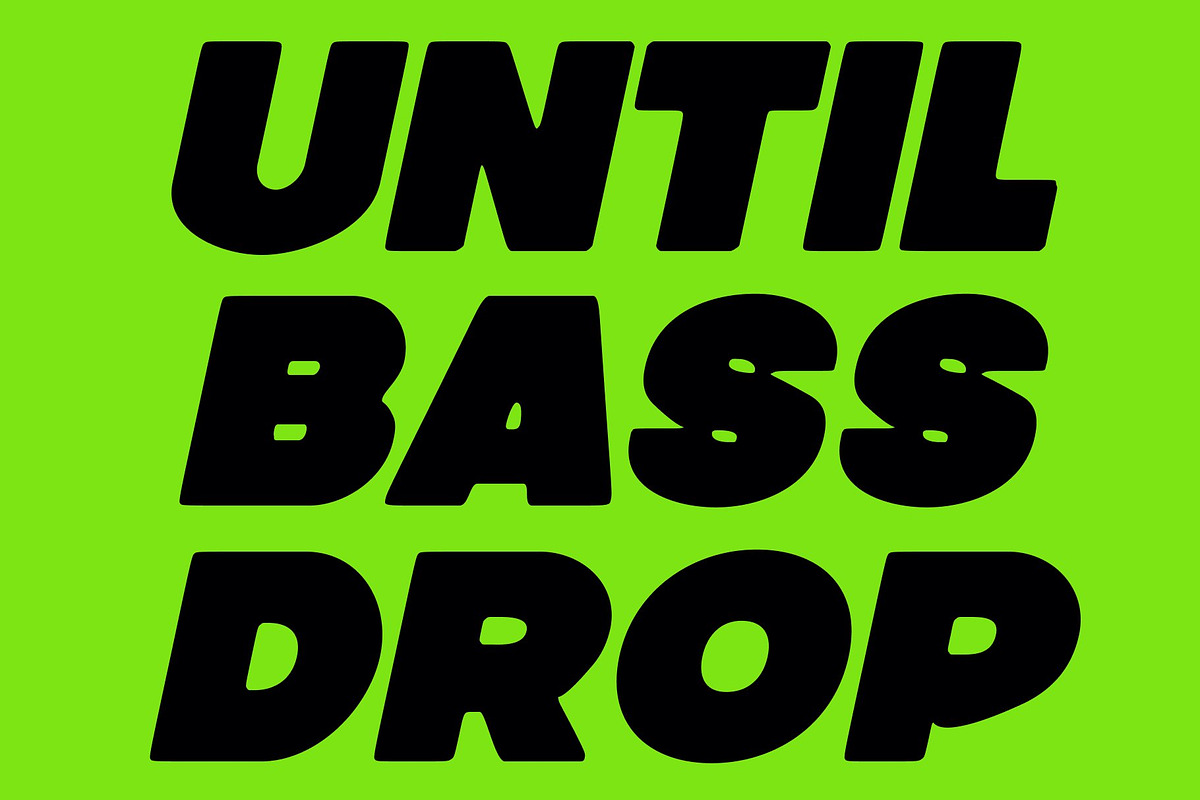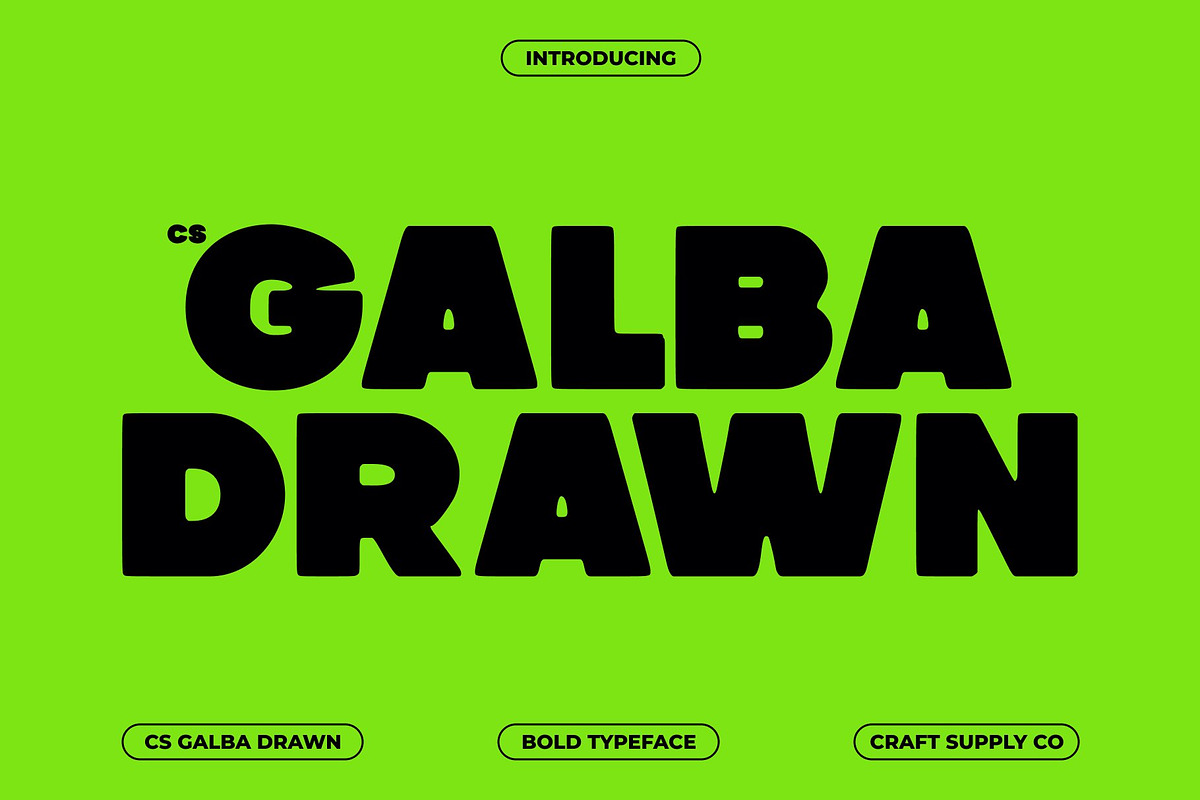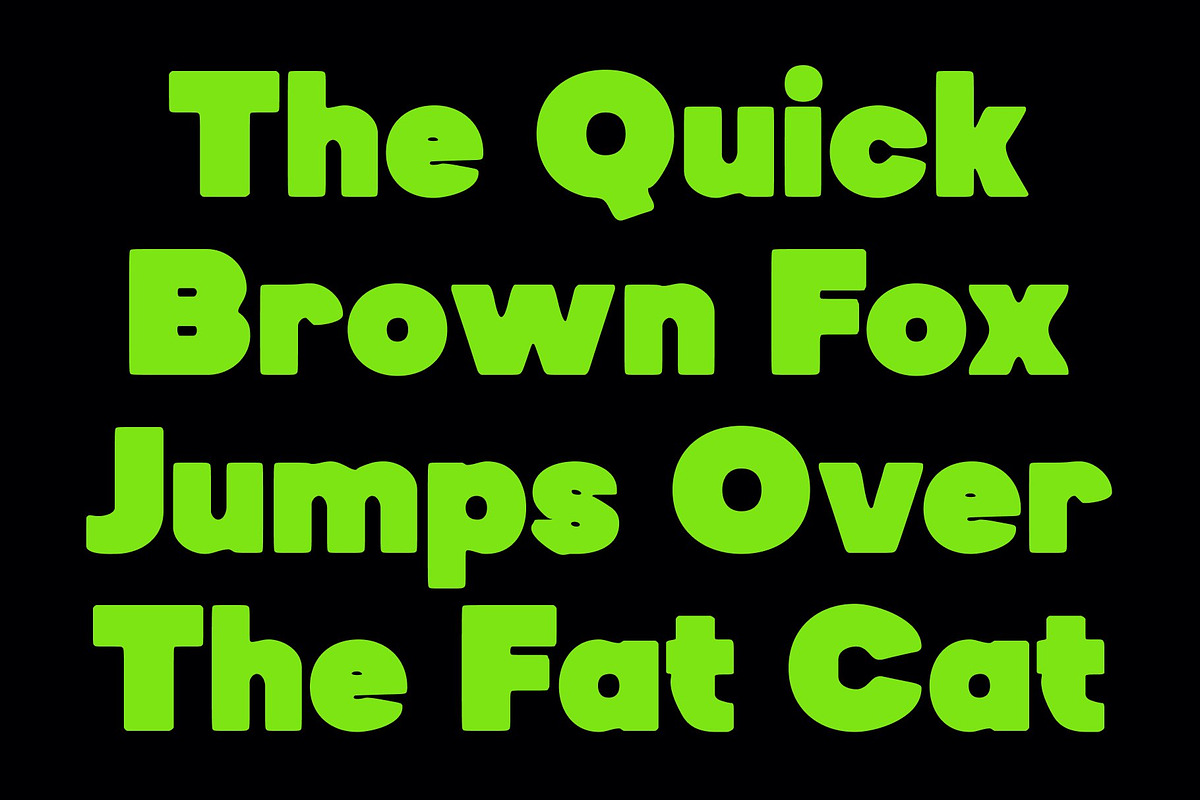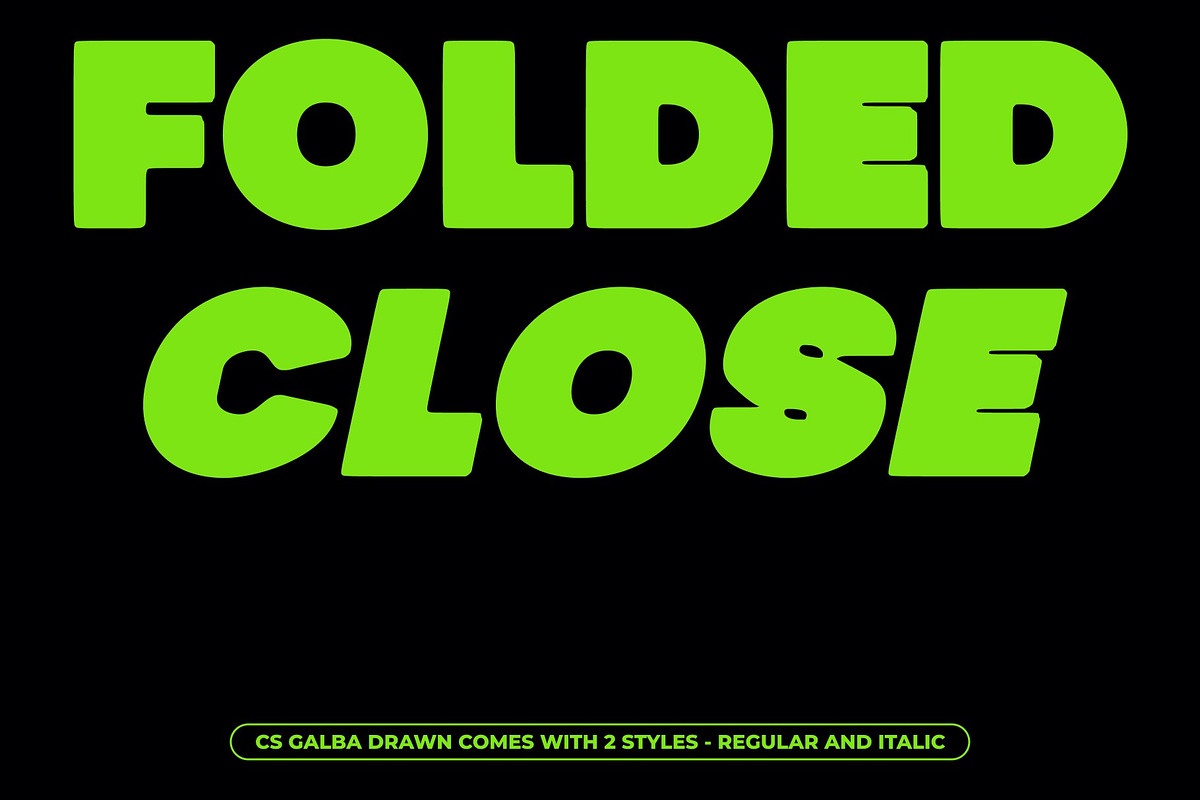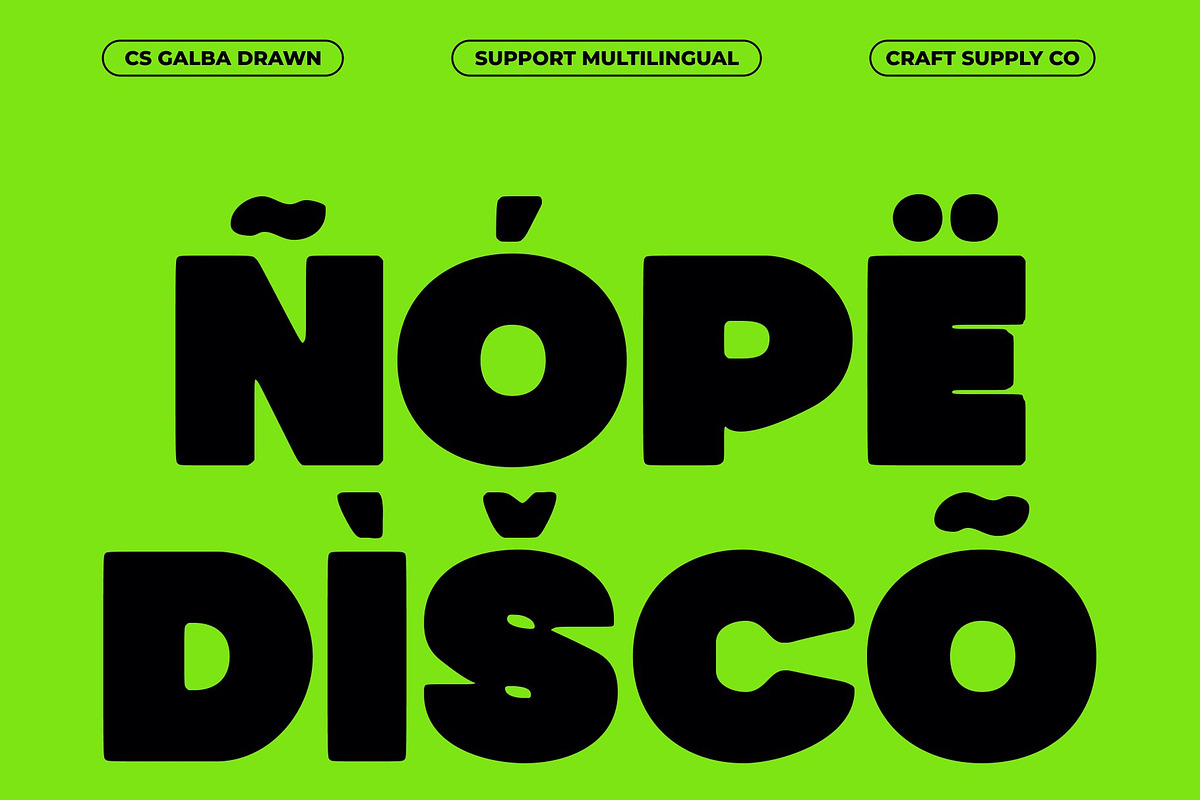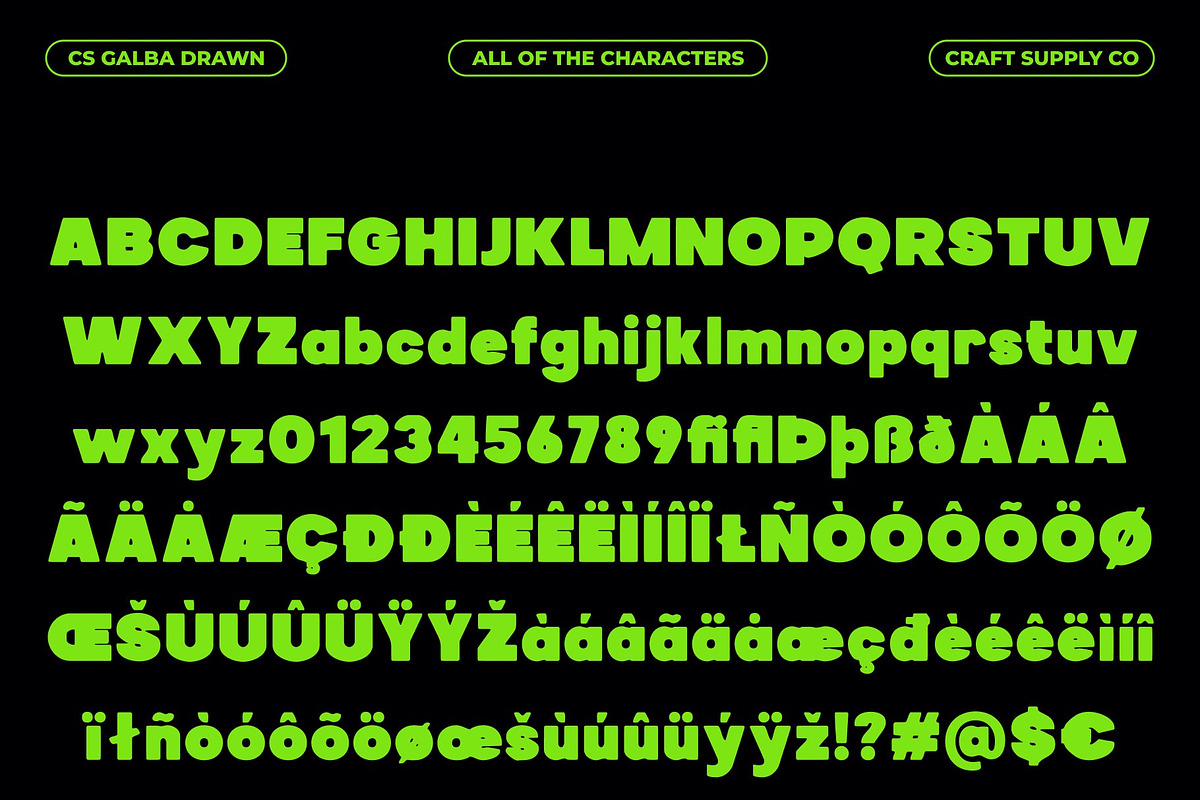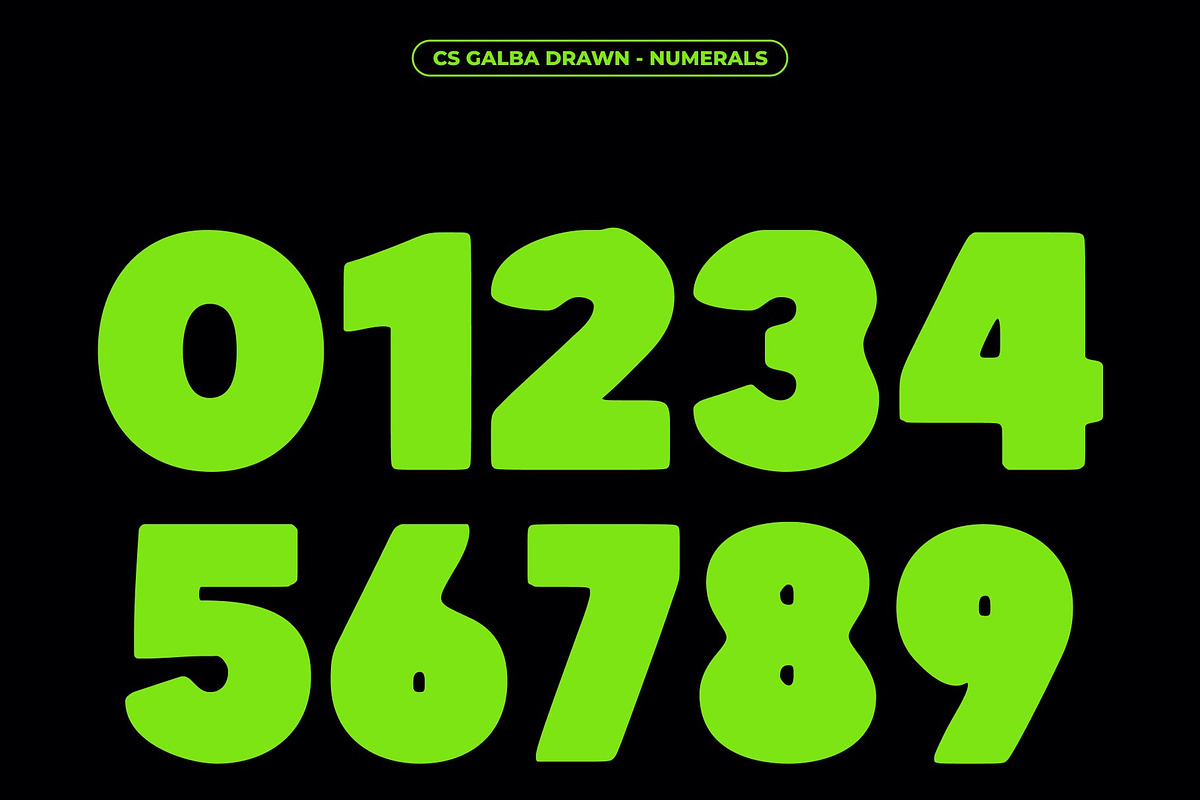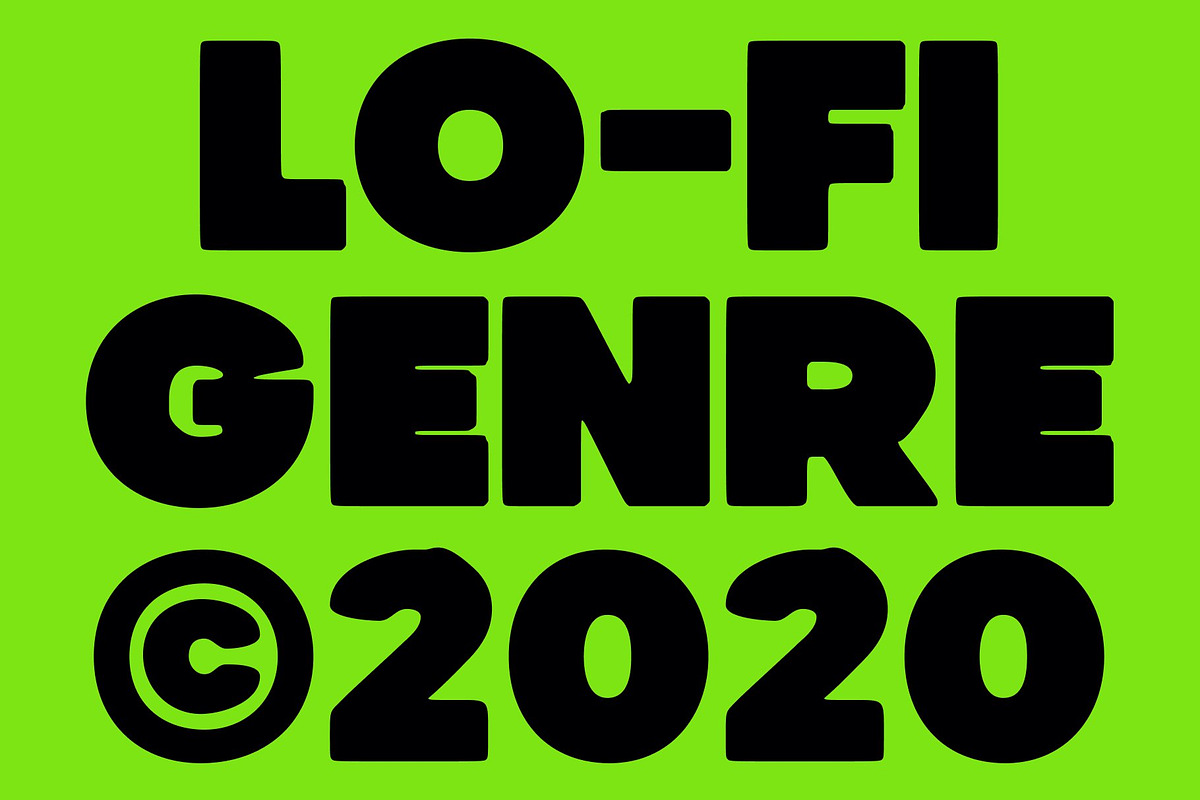
CS Galba Drawn
CS Galba Drawn – Bold Sans Serif with Geometric Precision
Bold and Expressive Design This is a bold sans serif display font crafted to command attention with every word. Its strong, modern letterforms combine geometric precision with dynamic proportions, creating a visually striking presence. Perfect for headlines, posters, and branding projects that demand energy, clarity, and personality.
Geometric Shapes with Artistic Texture The drawn effect adds subtle irregularities and handcrafted texture to each character, giving this geometric font a lively, organic feel. The slight variations in strokes introduce personality and warmth, transforming clean, structured forms into visually engaging, expressive typography.
Energetic Character for Impactful Displays This font radiates confidence and movement. Its bold, textured shapes create a dynamic rhythm that draws the eye, making it ideal for designs that need to communicate strength, modernity, and playful sophistication simultaneously.
Perfect for Contemporary Branding and Visual Projects From digital campaigns and editorial layouts to posters and modern branding, this font adapts with ease. Its combination of geometric clarity, bold impact, and artistic texture ensures every design feels contemporary, powerful, and memorably distinctive.